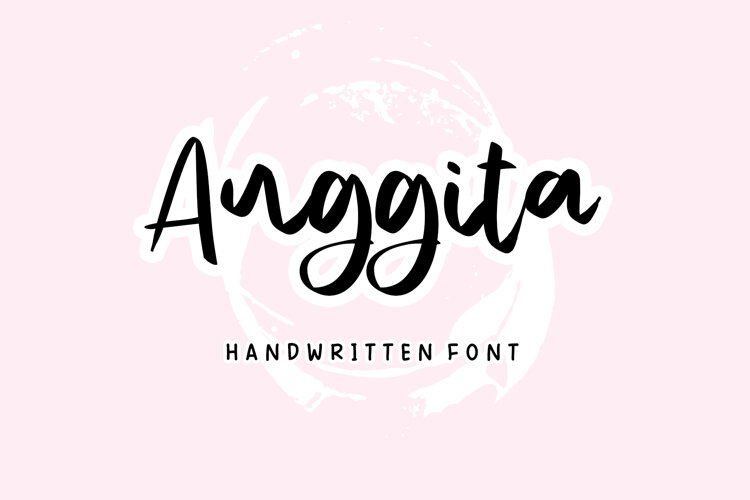
Beautiful Handwritten
Anggita is a lovely and timeless handwritten font. It is the best choice for creating eye-catching logos, branding, and quotes. Every letter has a unique and beautiful touch, which will make your design come alive! This font is PUA encoded which means you can access all glyphs and swashes effortlessly!